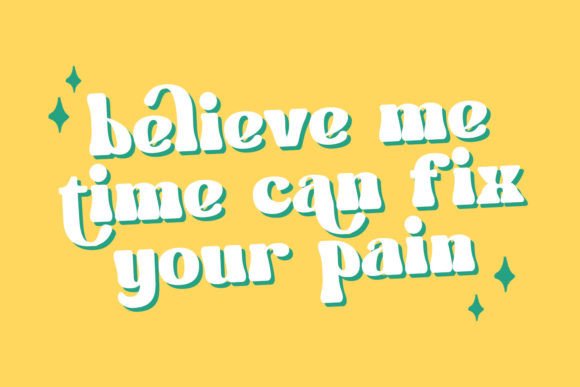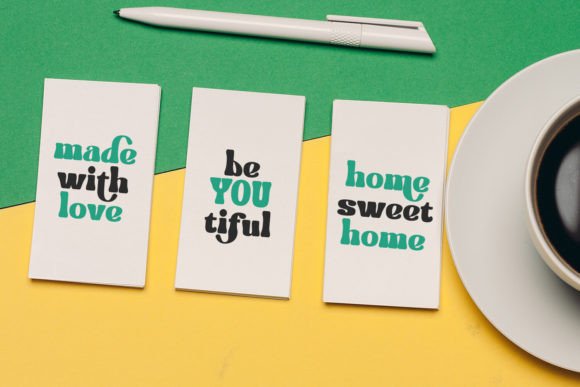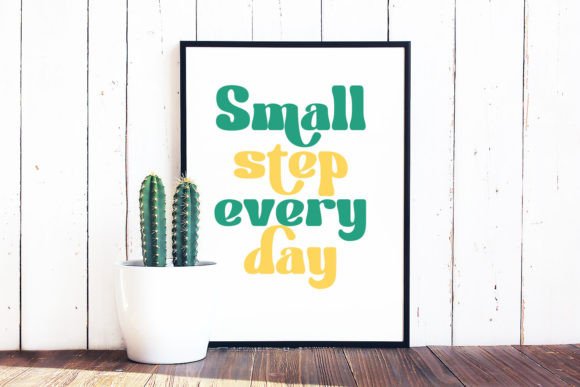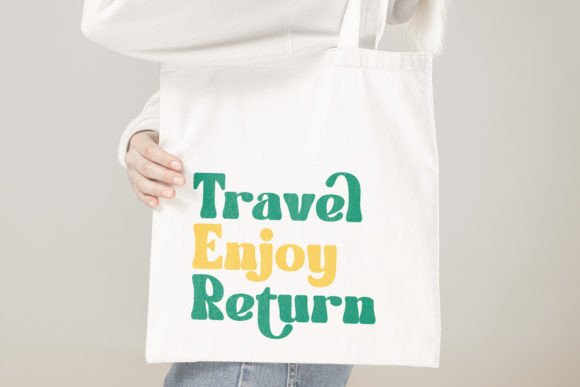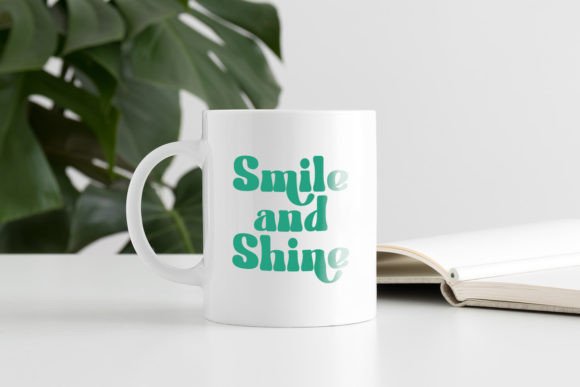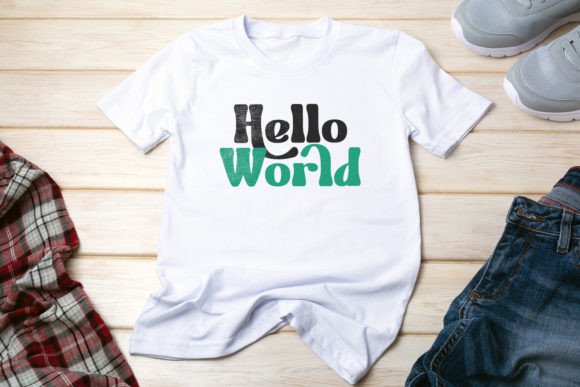
Introduction to Ranhart Font
Imagine yourself staring at a blank page, waiting for inspiration to strike. The cursor blinks impatiently, urging you to create something extraordinary. It’s in these moments that the right design resource can make all the difference. For designers seeking a high-quality font that exudes playfulness without compromising sophistication, the Ranhart Font is an excellent choice.
With its balanced weight and visible contrast, the Ranhart Font effortlessly blends a charming and approachable look with a level of sophistication that’s hard to find in other fonts. Whether you’re working on a creative project that requires a touch of whimsy or a design that needs to convey a sense of approachability, the Ranhart Font is sure to deliver.
Key Features of Ranhart Font
- Unique, high-quality font suitable for various creative projects, including digital designs and print materials.
- Designed with a modern aesthetic, making it an excellent choice for contemporary creative projects and branding materials.
Honest Review: Ranhart Font
As a designer, I’m always on the lookout for high-quality design resources to elevate my creative projects. The Ranhart Font caught my eye with its sleek, modern aesthetic and wide range of styles.
- ✨ The font offers a transparent background option, making it easy to use in various design scenarios.
- ✨ The font family includes multiple weights and styles, providing ample flexibility for different design projects.
- ⚠️ The font may not be suitable for projects requiring extreme font size scaling, as it can become pixelated.
- ⚠️ The font’s character set may not include all the necessary characters for non-English languages.
Overall, I’m impressed with the Ranhart Font’s quality and versatility. While it may have some limitations, it’s a great resource for designers looking to add a touch of modernity to their creative projects. With its transparent background option and free download, it’s definitely worth checking out.
The Ranhart Font is a high-quality design resource ideal for creative projects that require a unique touch. With its transparent background and sleek design, this font is perfect for adding a touch of elegance to your work.
To get the most out of the Ranhart Font, experiment with different font sizes, colors, and combinations. This will help you unlock its full potential and create unique designs.